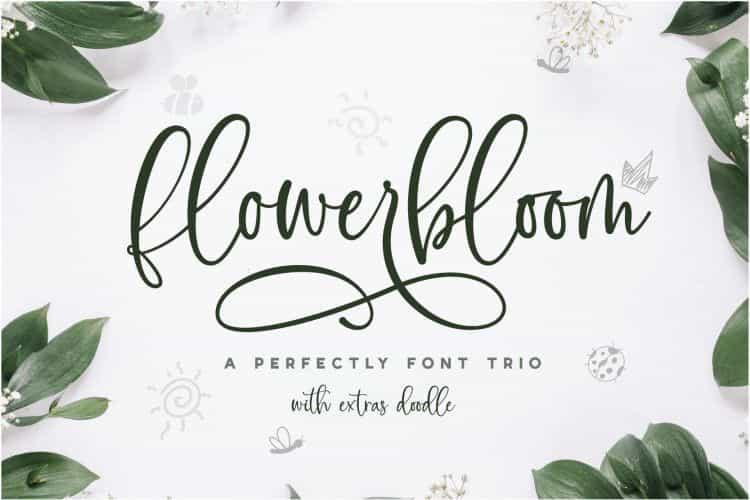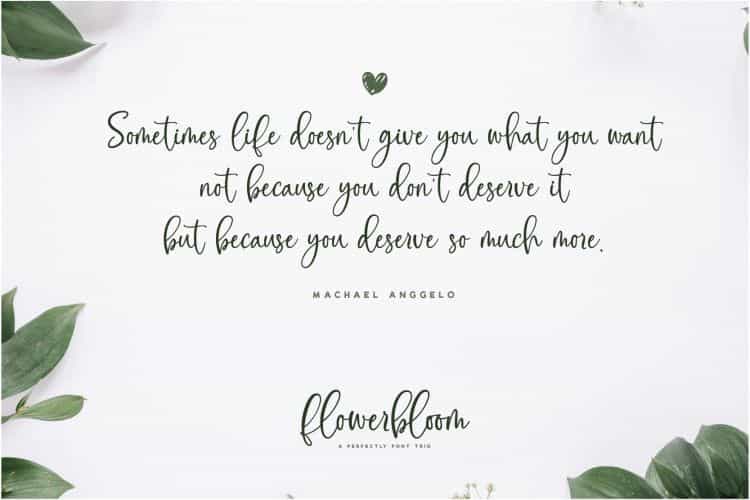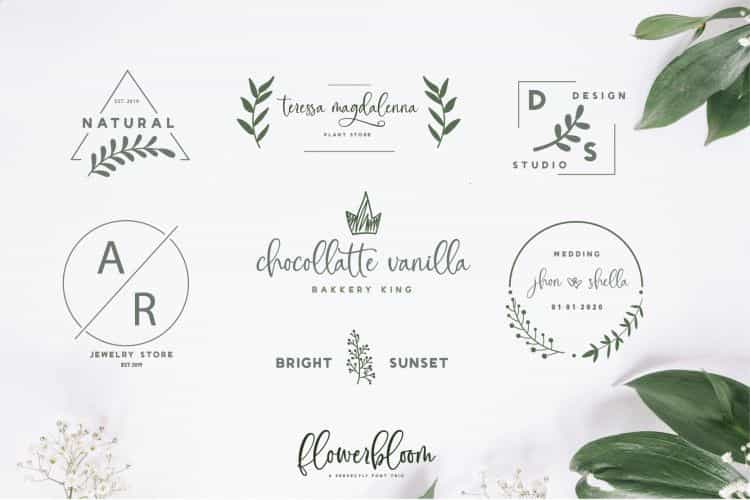
Discover Flowerbloom Font, part of the Calligraphy collection—a versatile and unique font perfect for adding a personal touch to your projects. Download it for free and enjoy crafting designs with style, from invitations to social media posts. This font is available exclusively for personal use, giving you the freedom to create without limits. Unlock your creativity with Flowerbloom Font today!
Meet the new Flowerbloom Script & Sans font. Introducing a new fresh & modern script with handmade calligraphy, decorative characters and dancing baseline! This was created and uploaded online by silverdav.